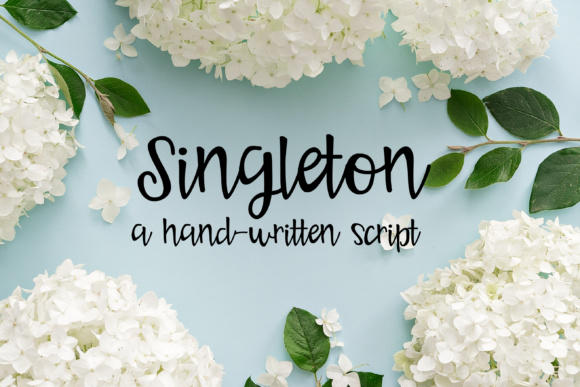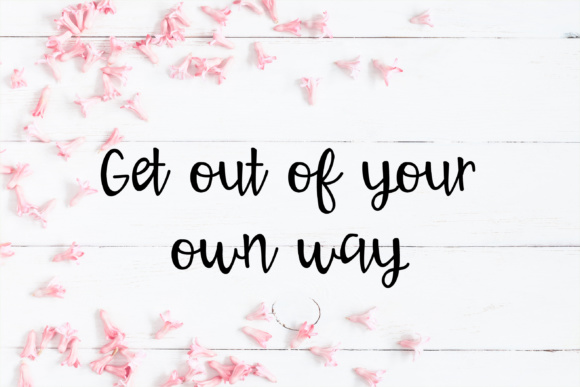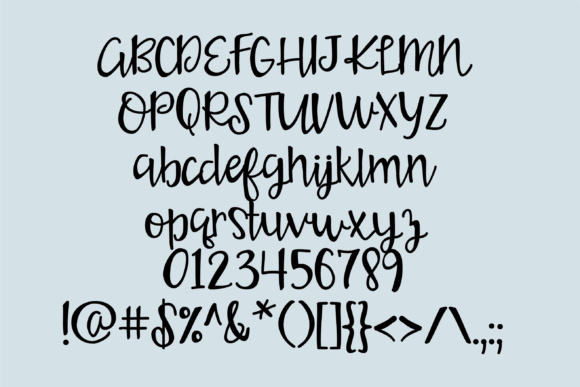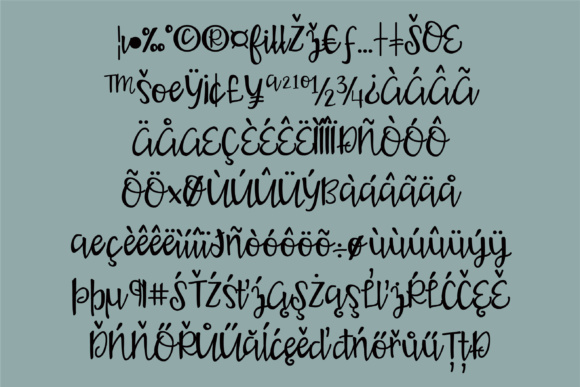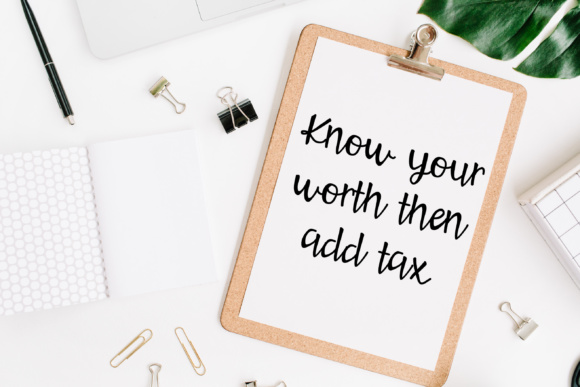
HomeScript FontsSingleton Font Script Fonts Singleton Font FacebookXPinterestWhatsApp Singleton Font Poster 2 Singleton Font Poster 3 Singleton Font Poster 4 Singleton Font Poster 5 About Singleton Font Singleton is a hand-written script with a cute, upright, cursive feel and a bit of bounce in the baseline. DOWNLOAD NOW People also explored Zahir Font Vanessa Font Thenicle Medium Font Happy Valentine Font Dragon Font Happy Pumpkins Font Bunny Girls Font Turlock JNL Font Lemon Tea Font 359 0 TagsSingleton Font Previous articleSaint Justin FontNext articleVeni Font LEAVE A REPLY Cancel reply Comment: Please enter your comment! Name:* Please enter your name here Email:* You have entered an incorrect email address! Please enter your email address here Website: Save my name, email, and website in this browser for the next time I comment. Personal Use Free Covelia Personal Use Free Read more about this font Super Bubbly Font Personal Use Free Read more about this font Rocketto Personal Use Free Read more about this font Limejuice Personal Use Free Read more about this font BLOG Elegant Wedding Invitation Fonts – Handwritten & Script Fonts Elegant Wedding Invitation Fonts Your wedding day is one of the most important moments of your life, and every detail matters—including your invitation design. Our... Where to Buy American Fonts Online in 2024 Transform Your Website: Elevate Your Typography with 7 Best Web Font Generators Free Fonts Risk: Why Free Fonts Can Be Dangerous for Designers